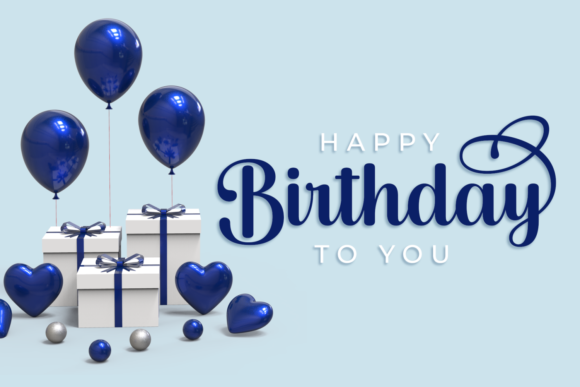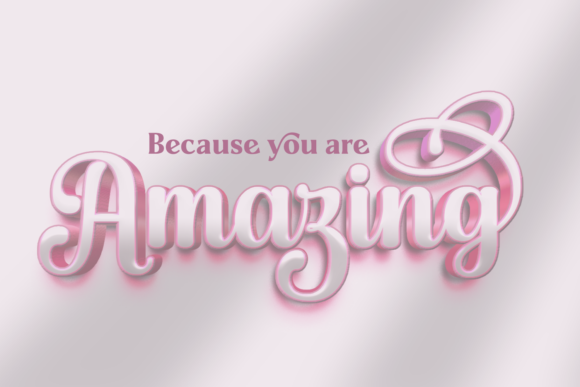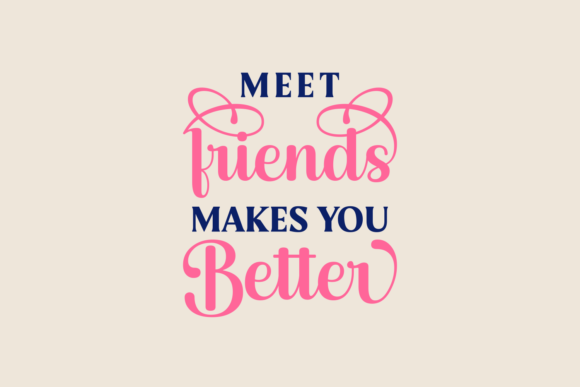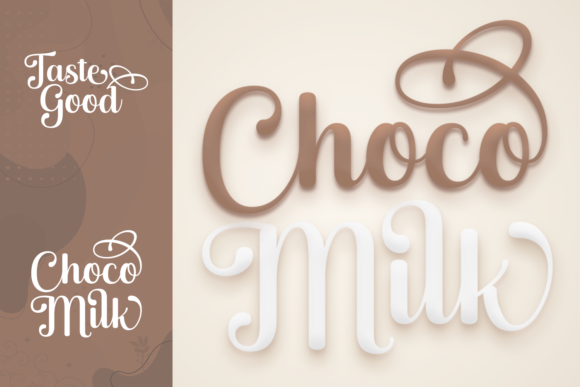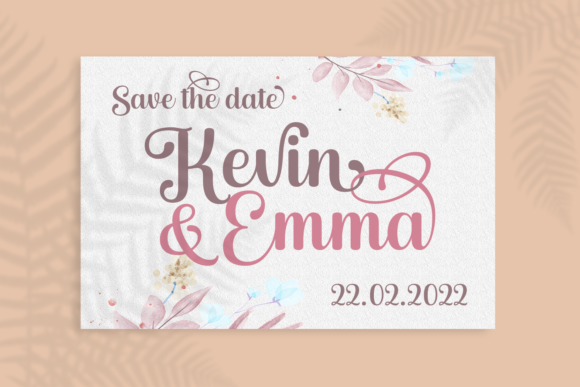
Hiltoy Font
About Hiltoy Font
Hiltoy is a distinct graceful script font. Fall for its ravishing style and use it to create gorgeous designs. This font is PUA encoded which means you can access all glyphs and swashes with ease!